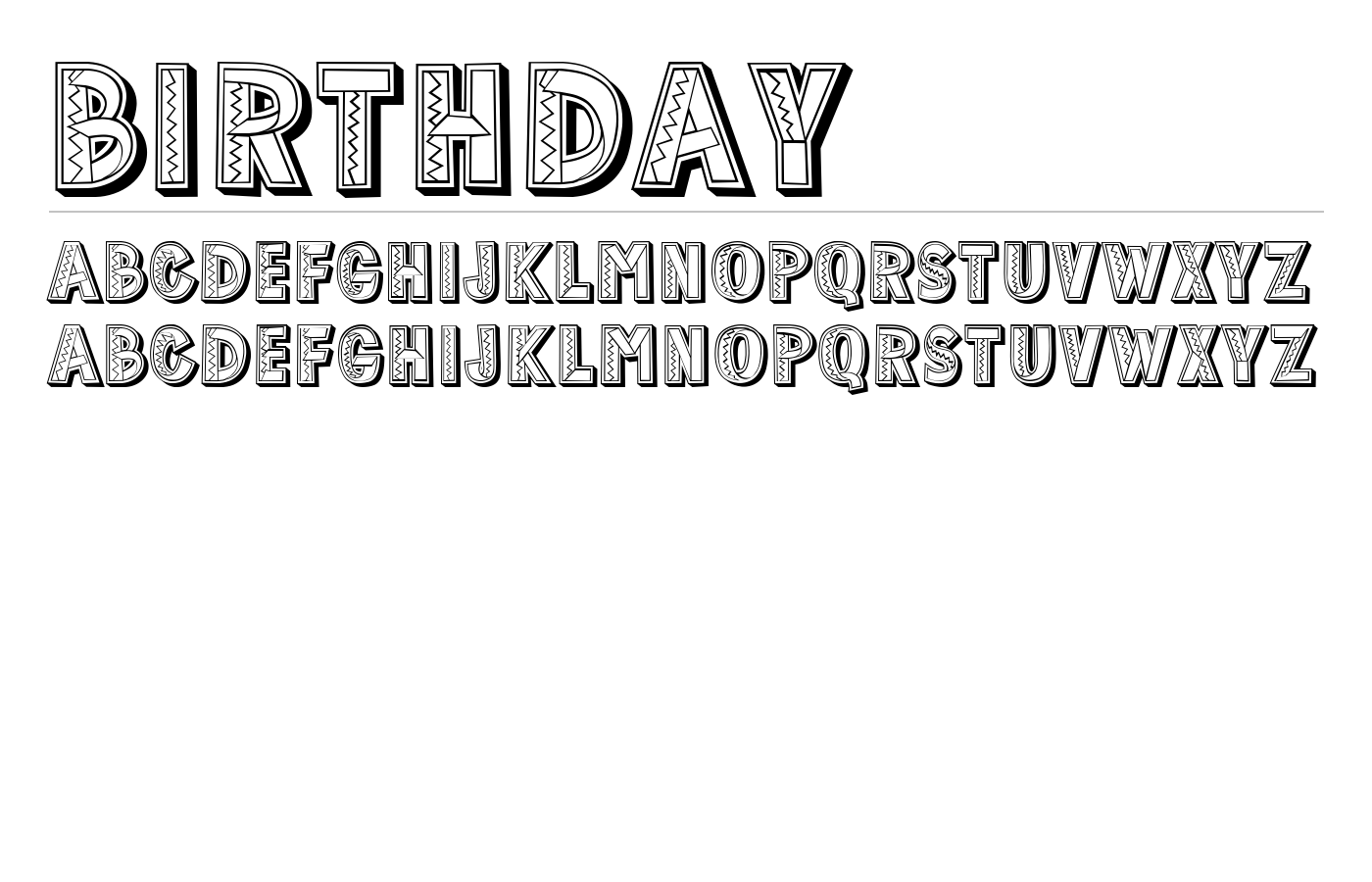
Birthday Font is a bold, playful sans serif typeface with a strong, decorative 3D effect and zigzag patterns inside the letters. Its thick strokes, lively outlines, and uppercase-only design create a fun, energetic vibe perfect for festive and youthful branding, party invitations, or eye-catching headlines. This font works best when you want to inject a cheerful, celebratory spirit into your design.
Birthday Font
About Birthday Font
| Font family | Birthday Font |